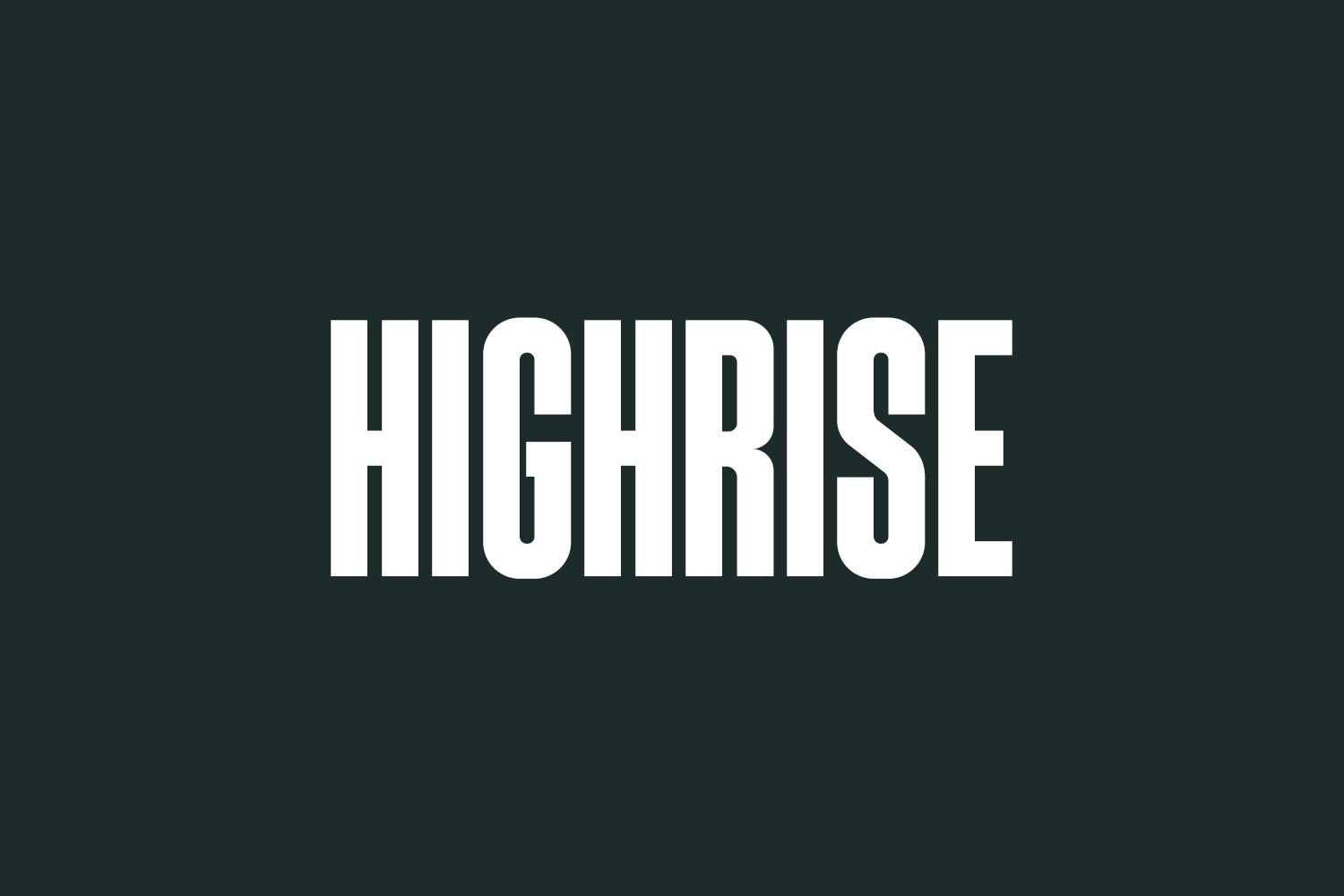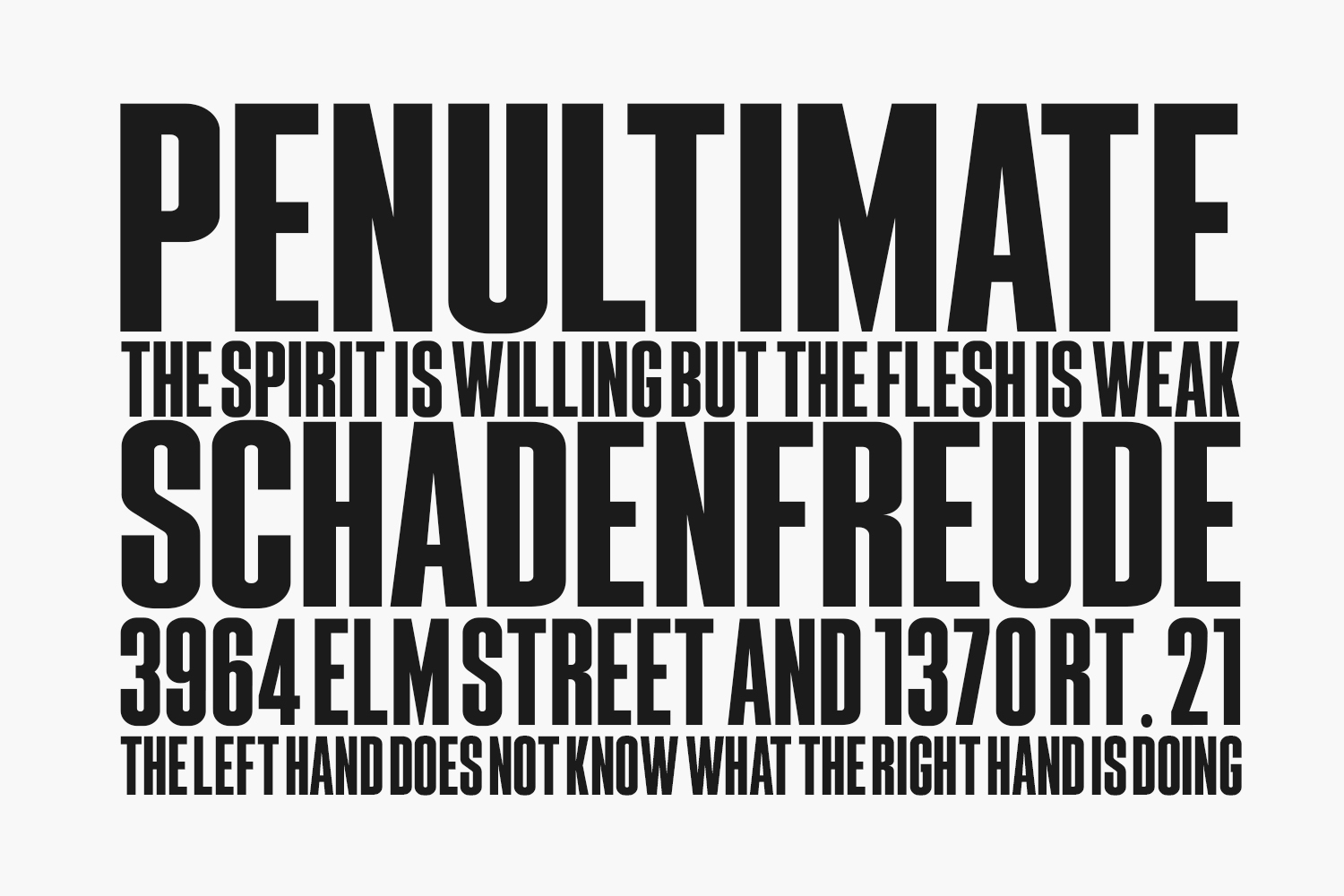
Highrise Free Font Family is a long and sleek sans serif font that exudes modernity and confidence. Its elongated lines and clean, minimal design convey a sense of strength, stability, and power. The font’s sans-serif design gives it a contemporary and modern look, making it perfect for any project that needs a touch of sophistication and simplicity. The font’s versatile design makes it suitable for any design project, from high-end technology products to modern and minimalist websites. Whether you’re creating a website, a logo, or a print design, the Highrise Free Font Family will add a touch of modernity and confidence to your work, making it look sleek and powerful.